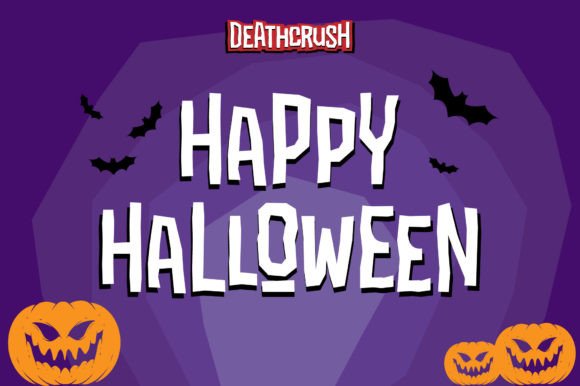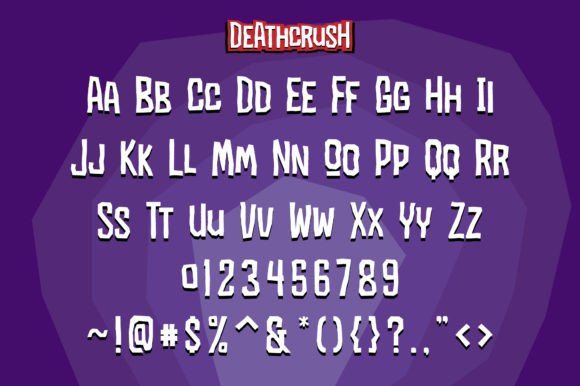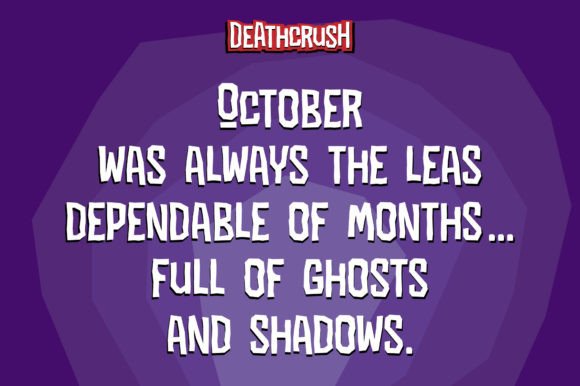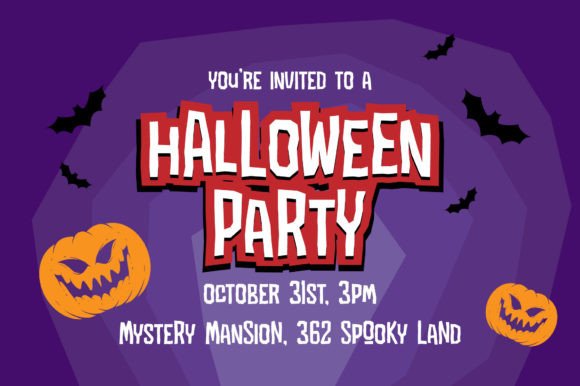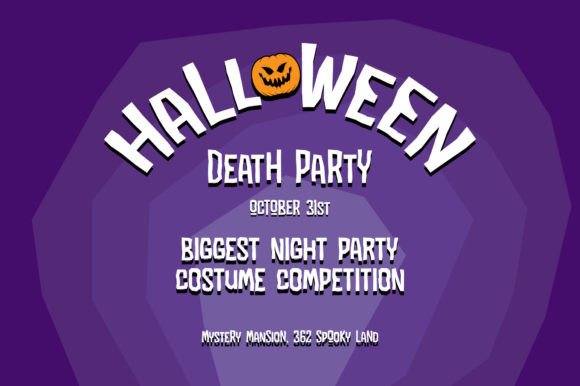
Introduction to Deathcrush Font
Deathcrush is a Halloween display font suitable for any project that needs to stand out.
Try it on banners, posters, covers, magazines, and more .
Key Features of Deathcrush Font